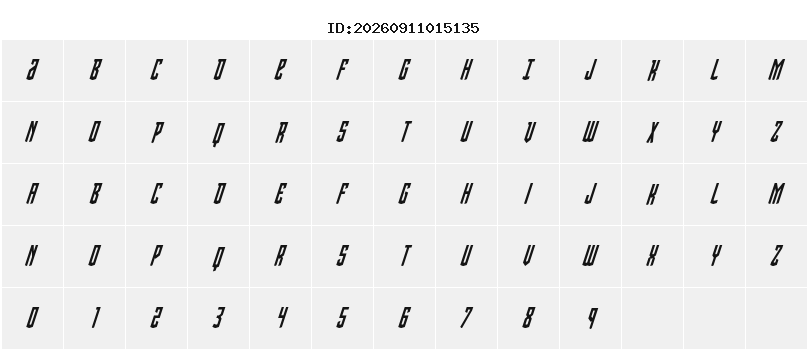
Viceroy of Deacons Condensed Italic Preview
• Font Name: Viceroy of Deacons Condensed Italic
• Font Style: Condensed Italic
• Font ID: Viceroy of Deacons Condensed Italic: 2013
• Full Font Name: Viceroy of Deacons Condensed Italic
• Version: Version 1.0; 2013
• PostScript Name: ViceroyofDeaconsCondensedItalic
About Viceroy of Deacons Condensed Italic.ttf
Viceroy of Deacons Condensed Italic.ttf is a modern, elegant sans-serif font designed for ultimate readability and visual harmony. Perfect for branding, headlines, web design, and print materials.